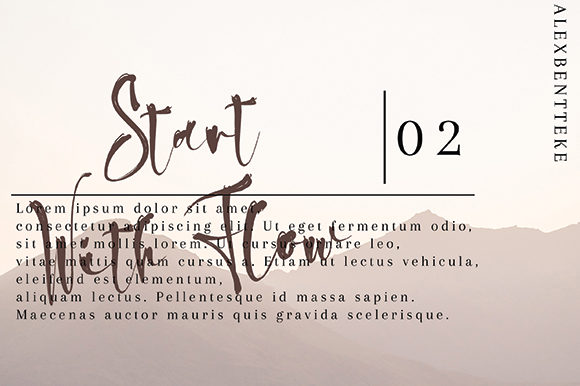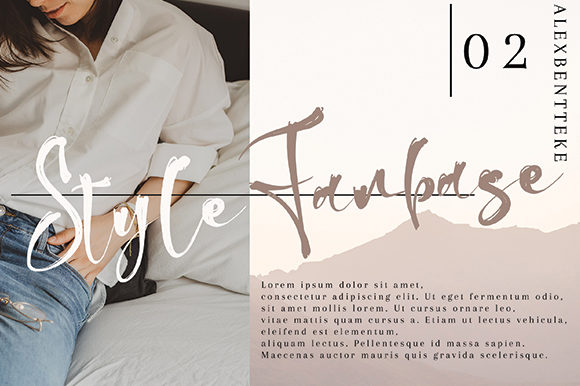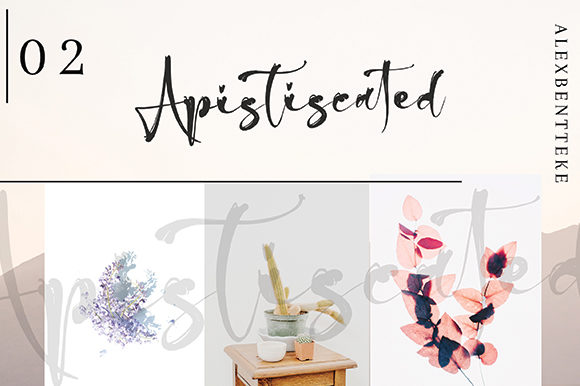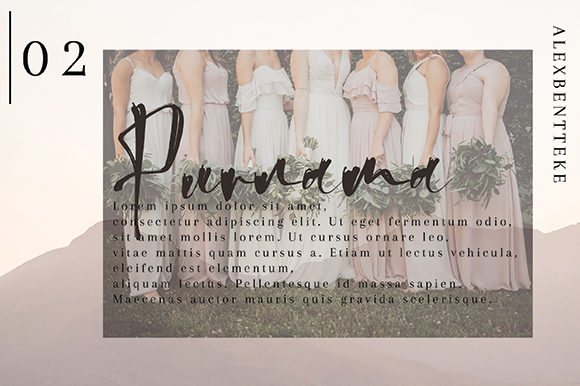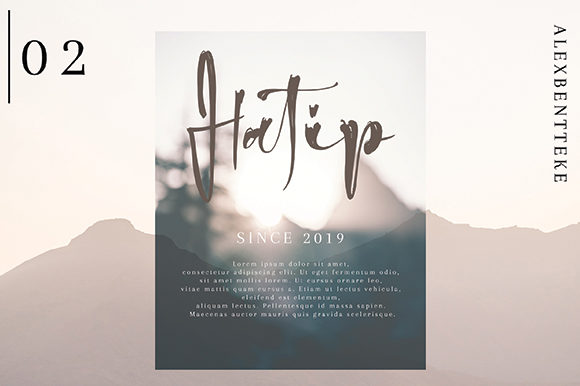
Introducing Alex Bentteke Font: A Unique Handwritten Script with a Raw, Charming Twist
In the world of typography, handwritten fonts have always been a popular choice among designers and crafters. They add a personal touch to any text, making it stand out from the crowd. One such font that has been making waves in the design community is the Alex Bentteke Font. Drawn with a dry brush, this font is a quite unique take on a classic handwritten script. In this article, we’ll explore the features and benefits of the Alex Bentteke Font and why it’s a must-have for designers and crafters.
The Story Behind Alex Bentteke Font
The Alex Bentteke Font is a product of creative experimentation and innovation. Its unique texture and charm are a result of being drawn with a dry brush, giving it a raw, organic feel. This technique sets it apart from other handwritten fonts, making it a refreshing addition to any design project. The font’s creator aimed to capture the essence of handwriting, with all its imperfections and quirks, resulting in a script that exudes personality and character.
Key Features of Alex Bentteke Font
- Unique Texture: The dry brush technique used to create Alex Bentteke Font gives it a distinctive texture that’s both rough and charming.
- Handwritten Style: The font’s handwritten style makes it perfect for adding a personal touch to any text.
- Legibility: Despite its raw texture, Alex Bentteke Font remains highly legible, making it suitable for use in a variety of design projects.
- Versatility: The font’s versatility allows it to be used in various contexts, from digital media to print materials.
So, why should designers and crafters consider adding Alex Bentteke Font to their collection? Here are a few benefits:
- Adds Personality to Text: The font’s unique texture and handwritten style help to add personality to any text, making it more engaging and attention-grabbing.
- Enhances Creativity: With Alex Bentteke Font, designers and crafters can experiment with new and innovative design ideas, pushing the boundaries of their creativity.
- Perfect for Branding: The font’s distinctive texture and style make it an excellent choice for branding projects, helping businesses to establish a unique visual identity.
- Easy to Use: As a digital font, Alex Bentteke Font is easy to use and integrate into design projects, making it a convenient addition to any design workflow.
Using Alex Bentteke Font in Design Projects
So, how can designers and crafters make the most of Alex Bentteke Font? Here are a few ideas:
- Pair with Other Fonts: Experiment with pairing Alex Bentteke Font with other fonts to create visually appealing contrast and hierarchy.
- Use for Headings and Titles: The font’s bold, expressive texture makes it perfect for use in headings and titles, adding emphasis and drawing attention.
- Add to Digital Media: Use Alex Bentteke Font in digital media, such as social media graphics, blog posts, and website headers, to add a personal touch and stand out from the crowd.
- Experiment with Colors: Play with different colors and textures to enhance the font’s unique texture and add depth to design projects.
In conclusion, Alex Bentteke Font is a unique and charming handwritten script that’s sure to make any text stand out. Its raw, organic texture and bold, expressive style make it a must-have for designers and crafters looking to add personality and creativity to their design projects. With its versatility, legibility, and ease of use, Alex Bentteke Font is an excellent addition to any design collection.